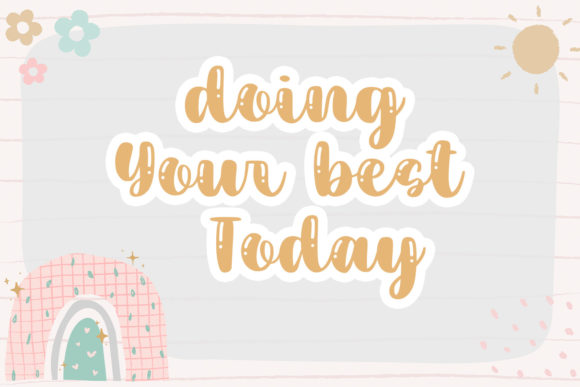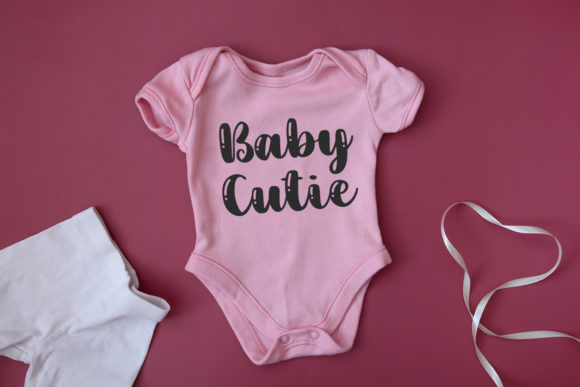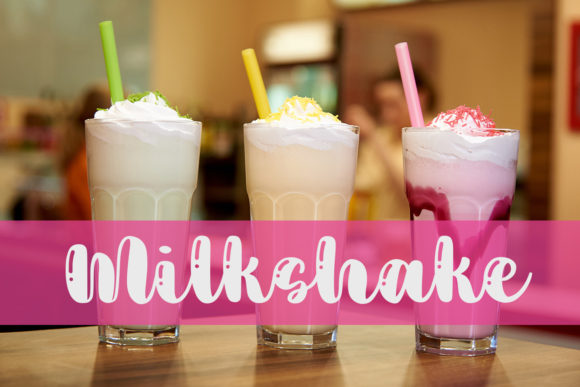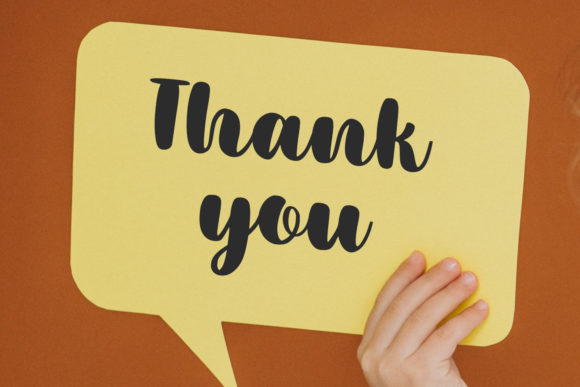
Introduction to Petrichor Font
Petrichor is a trendy looking and stylish script font.
It matches wide ranges of creations, both formal and informal You can employ it to magazine covers, posters or logos.
Key Features of Petrichor Font
Why Choose Petrichor Font?
Petrichor Font offers exceptional quality and versatility, making it a valuable addition to your design toolkit. Whether you’re creating for personal projects or commercial use, Petrichor Font delivers professional results.